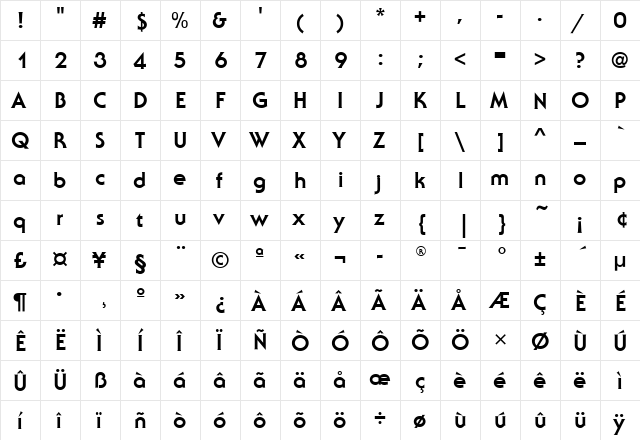
SerifGothicRegITC ExtraBold
Design Context for SerifGothicRegITC Typeface
SerifGothicRegITC brings classic typographic sensibility to the table — its serifs and measured letterforms reflect centuries of print heritage. The heavy weight commands attention and anchors typographic hierarchies.
Pro Tip: Set SerifGothicRegITC with slightly loose tracking in headlines to let each letterform's detail read clearly at display sizes.